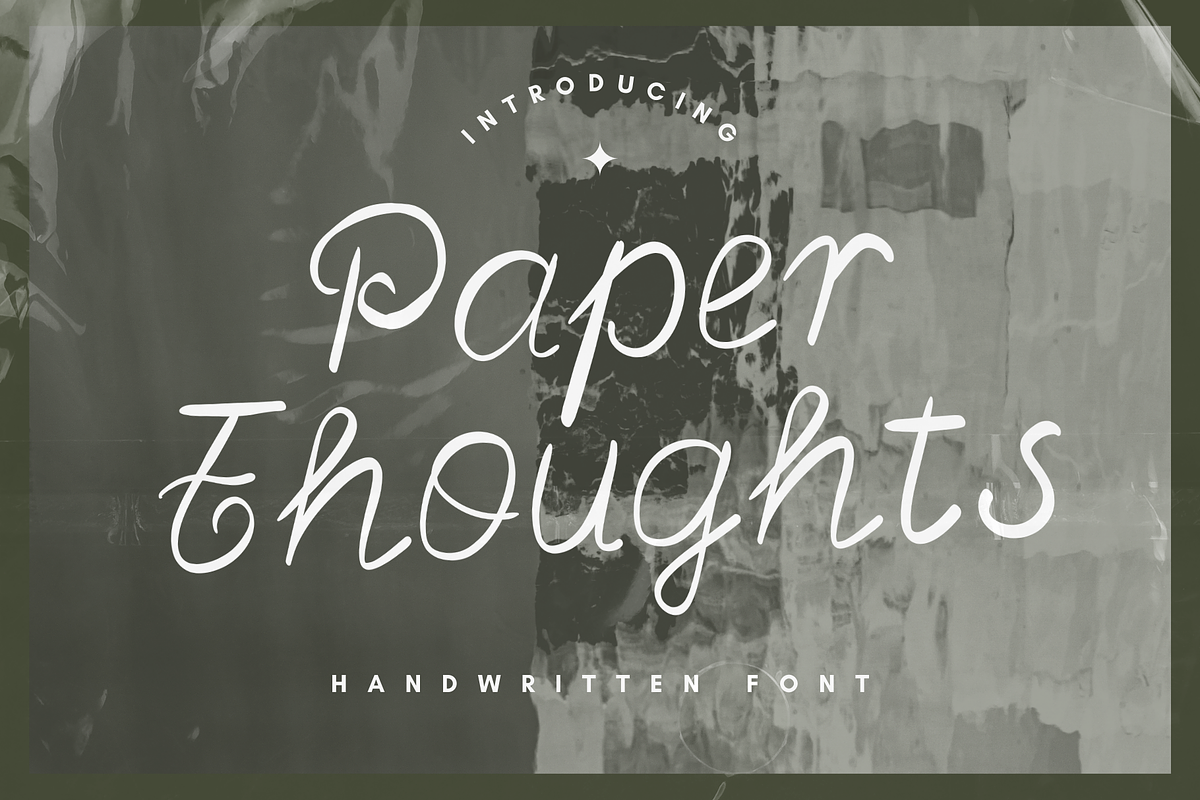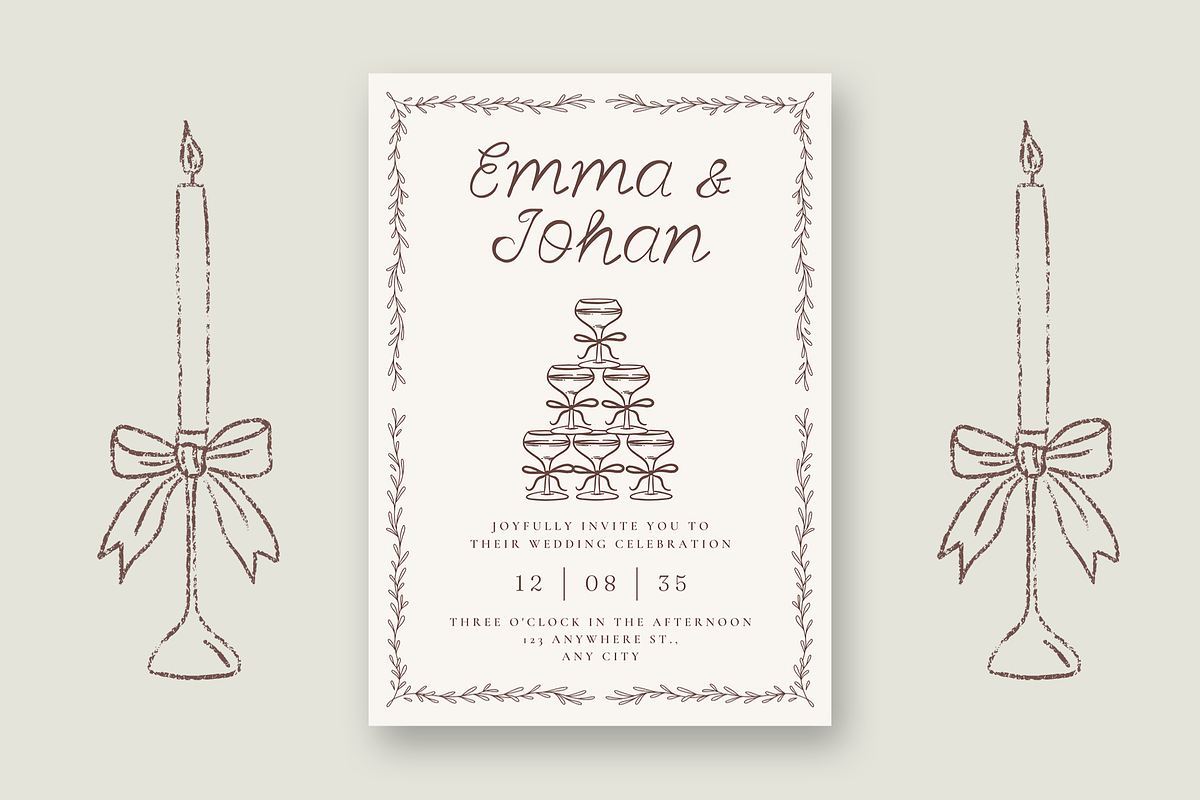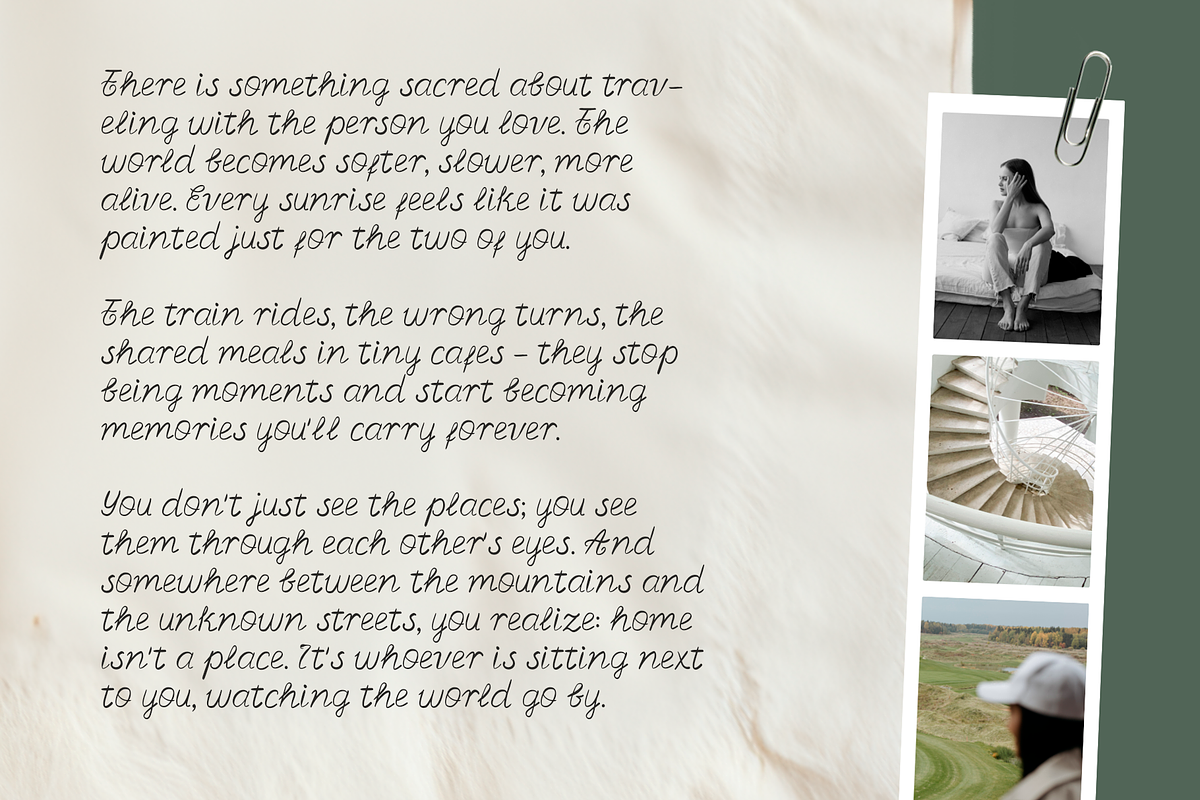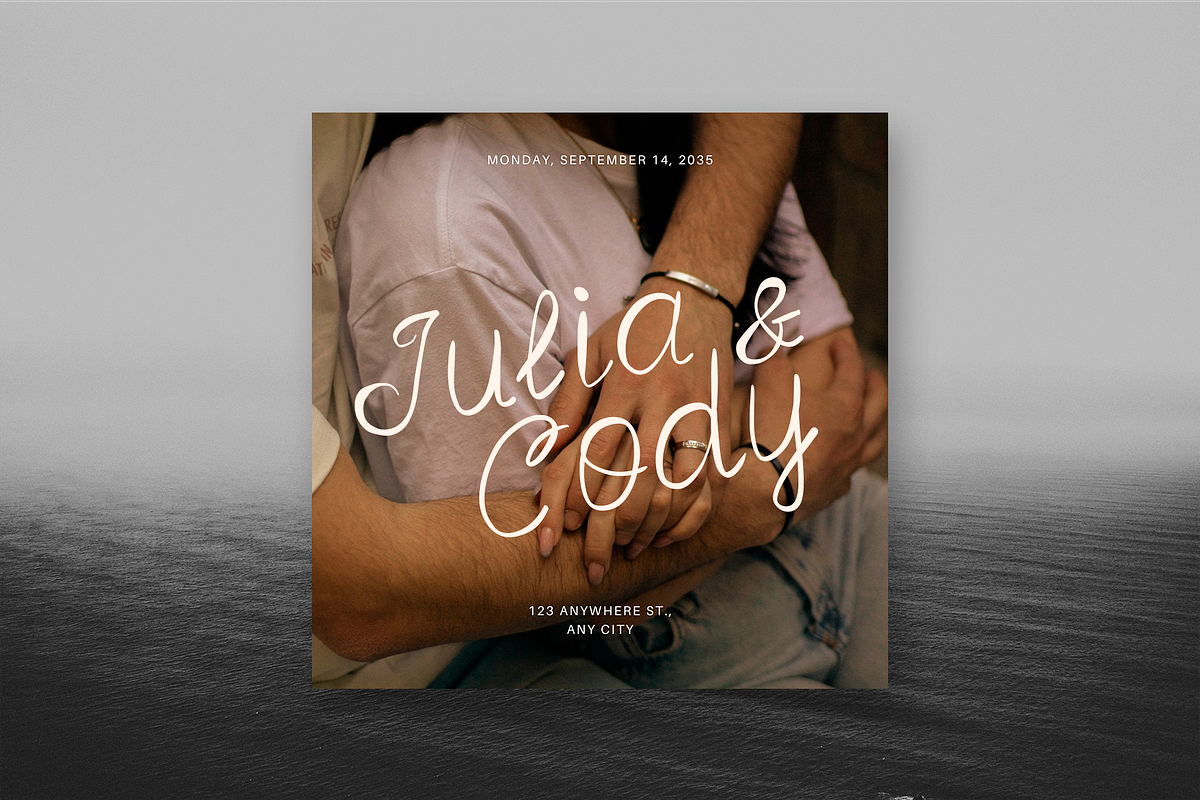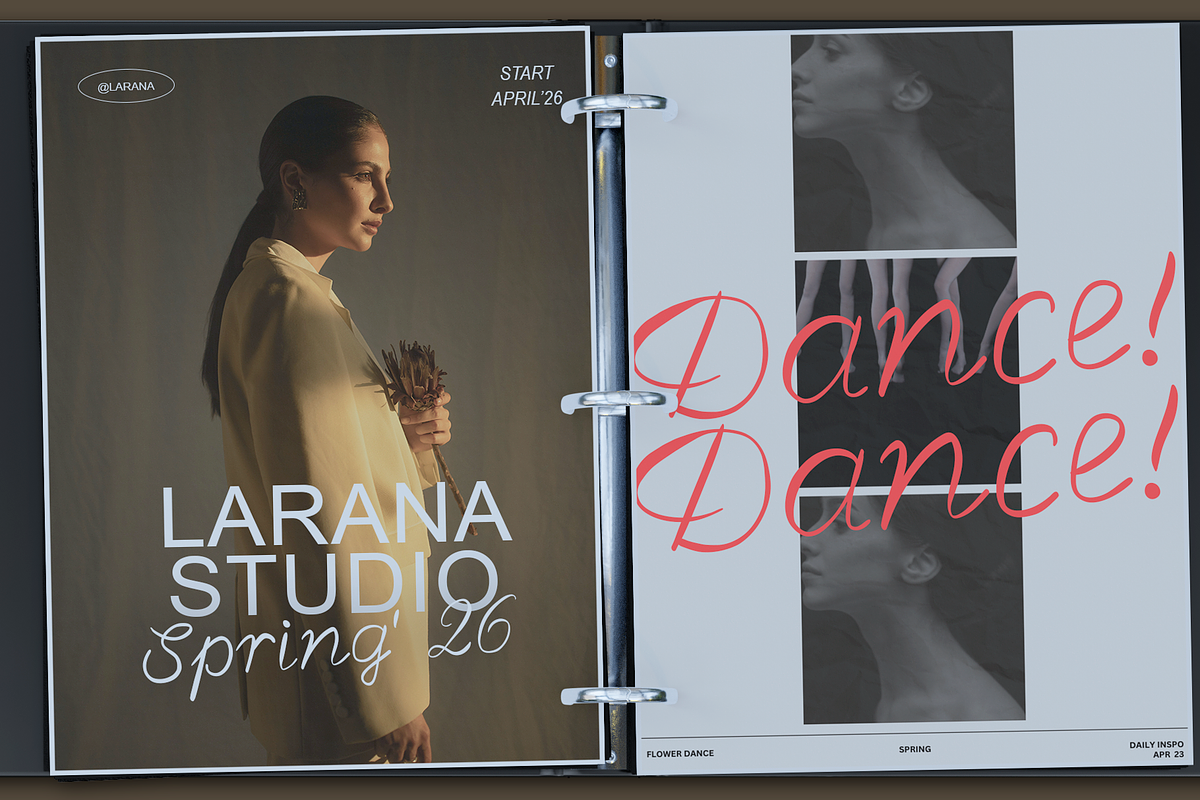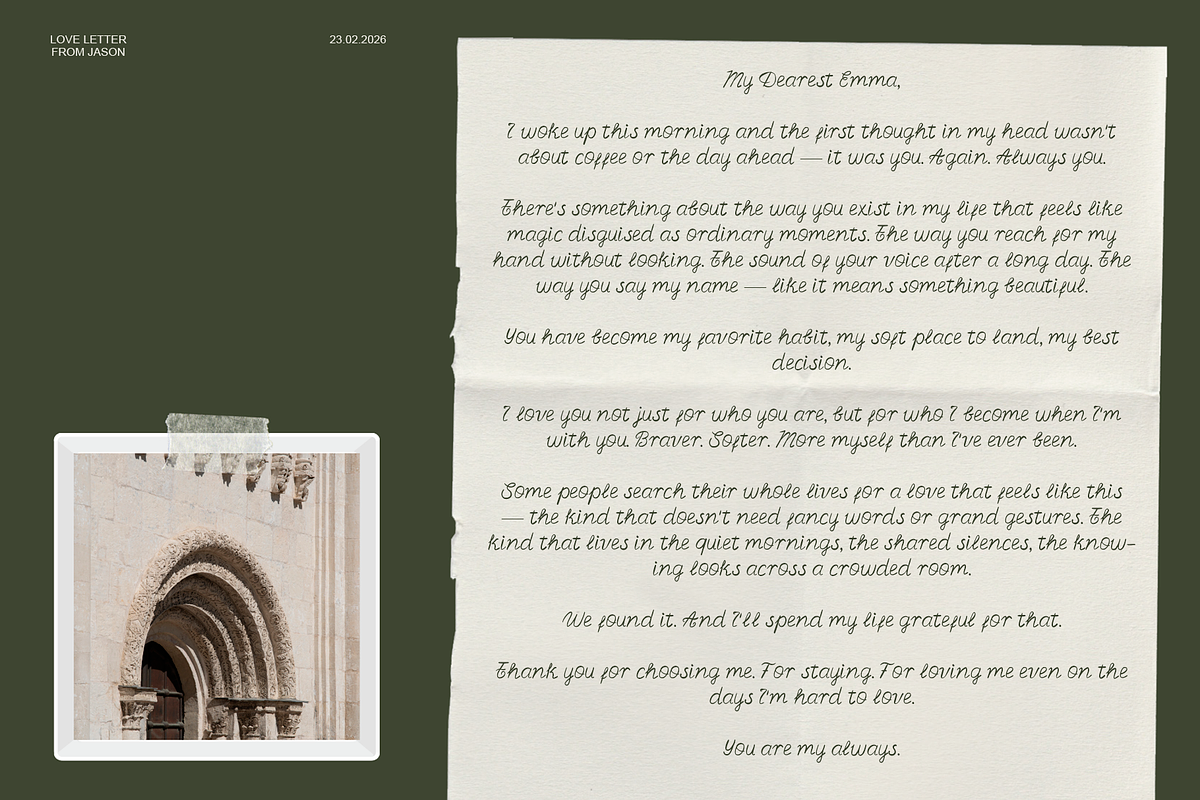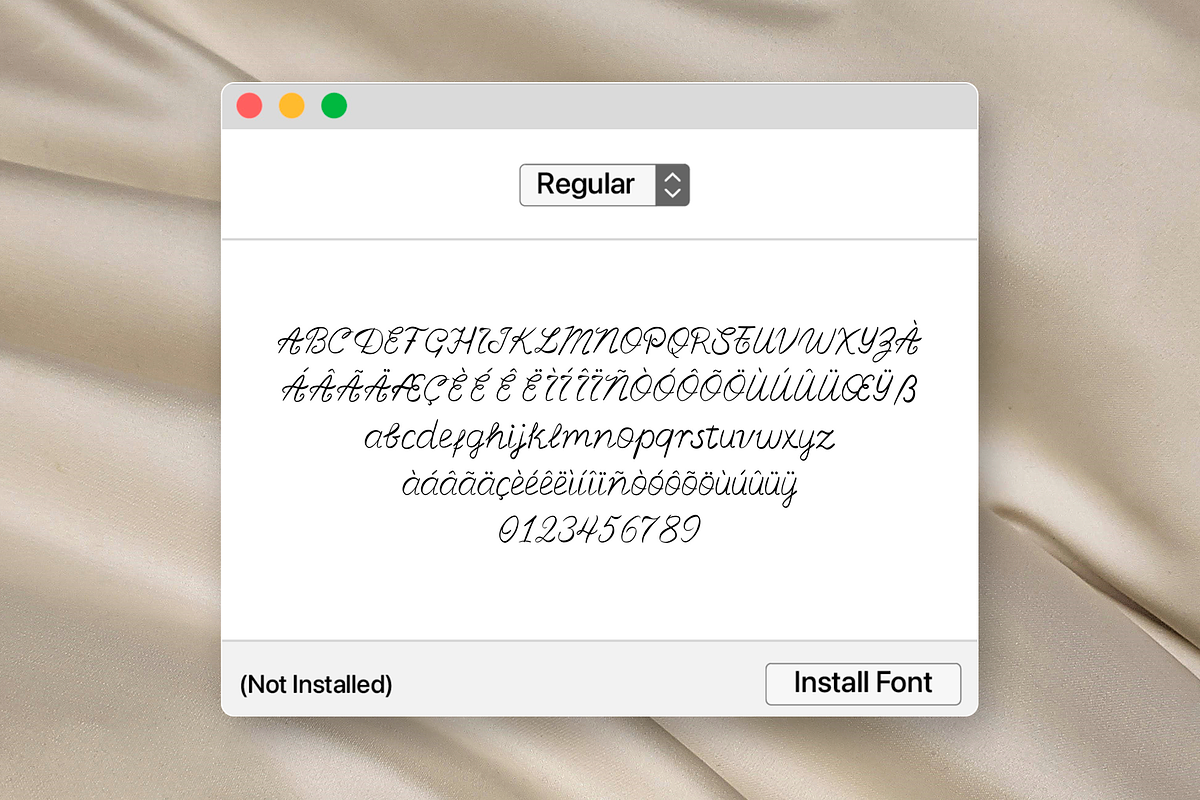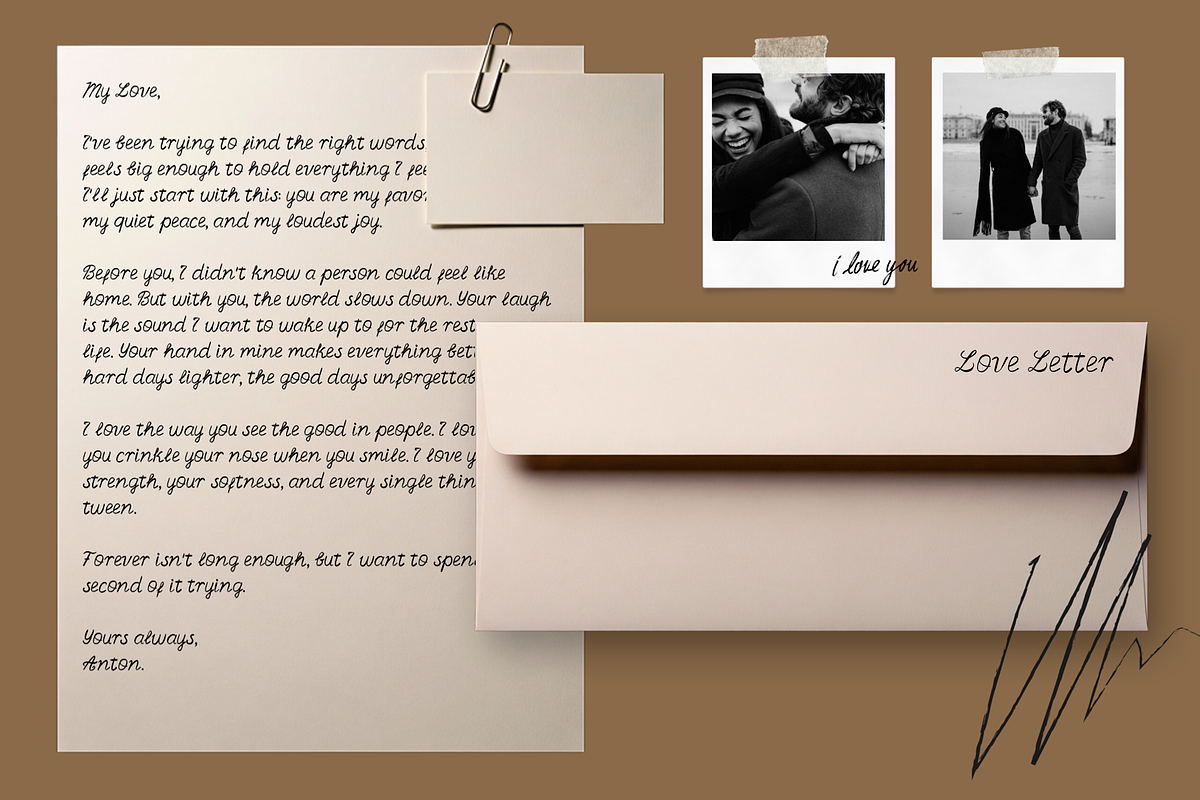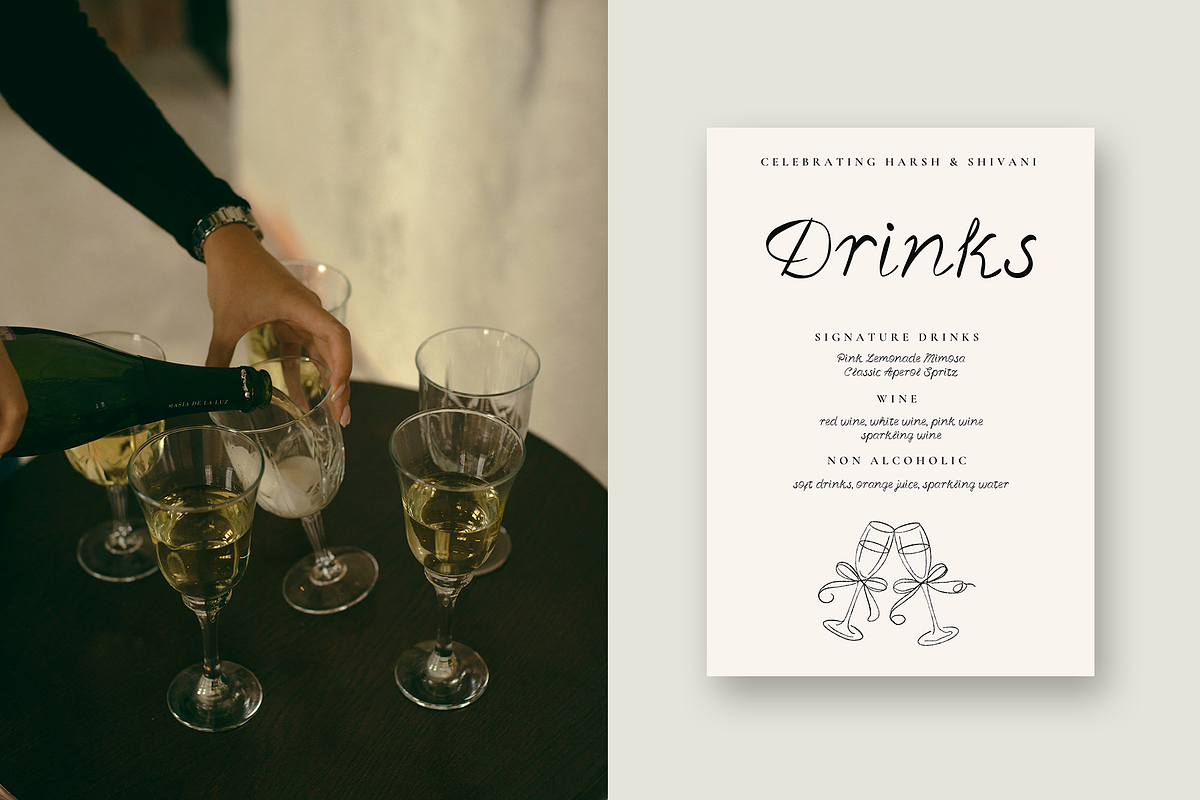
Aesthetic Elegant Romantic Script
Paper Thoughts is a handcrafted display font that celebrates the beauty of individual expression. Characterized by its disconnected letterforms and a rhythmic, "staccato" flow, it captures the authentic feel of a pen moving across paper without the constraints of traditional script.
Key Characteristics:
The Human Touch: Unlike rigid calligraphy, Paper Thoughts maintains the natural flow of a pen on paper, capturing the imperfections that make handwriting feel alive.
Artistic Versatility: As seen in the new cover, this font holds its own against high-contrast, textured backgrounds. It can shift from romantic and soft to edgy and urban depending on its surroundings.
Modern Print Aesthetic: By avoiding connections (ligatures), the font maintains a clean, "written-by-hand" feel that works perfectly for short, impactful statements.
Versatility in Application:
High-Fashion Editorial: Pairs beautifully with clean sans-serifs and bold photography for a contemporary, "magazine-ready" look.
Modern Romanticism: Its delicate strokes and artistic flourishes make it an ideal choice for invitations and wedding stationery.
Raw & Urban: Holds a powerful presence against gritty, high-contrast textures, proving that elegance can have an edge.
Personal Touch: Perfect for long-form handwritten styles, such as postcards or notes, where authenticity is key.